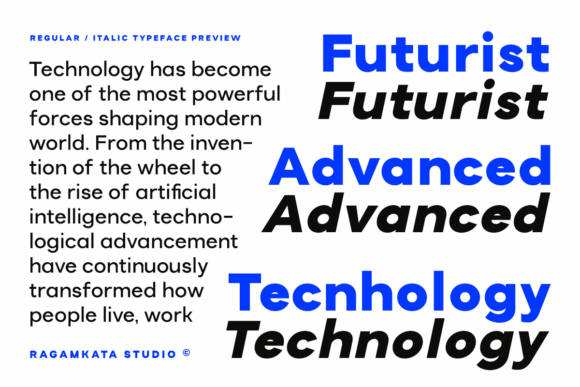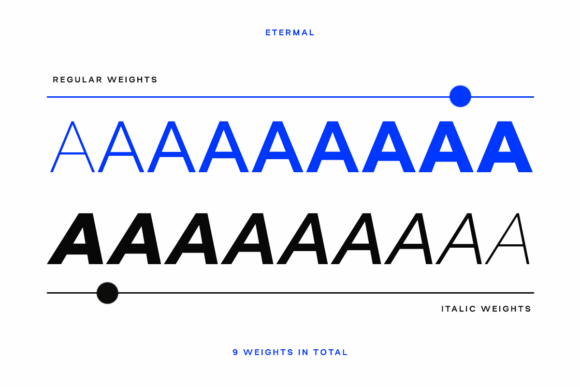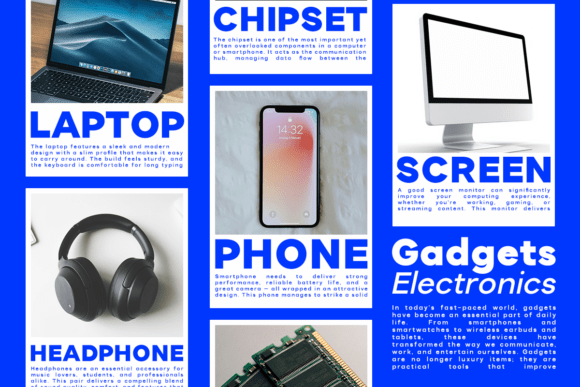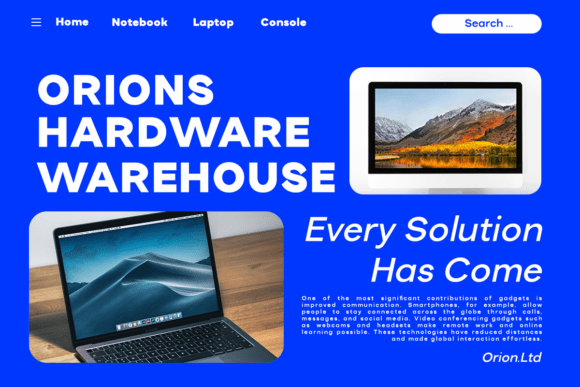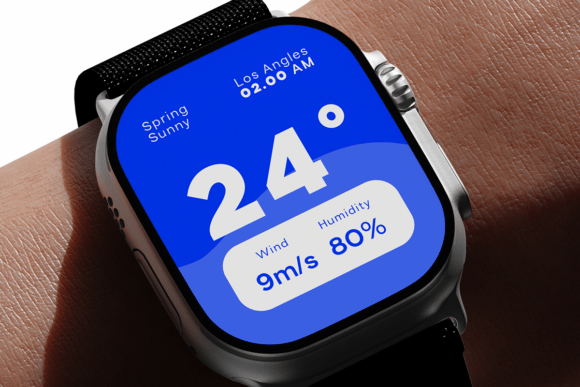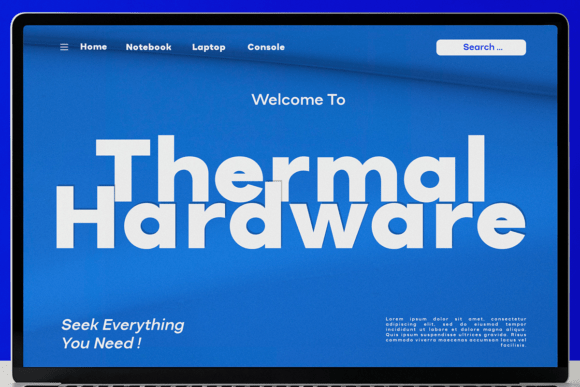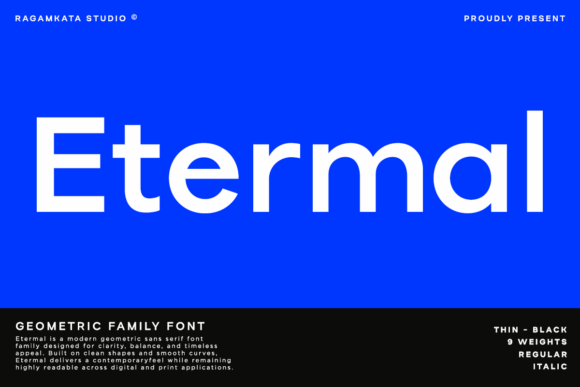
Etermal Font: The Ultimate Geometric Sans Serif for Modern Design
In the world of typography, a font can make or break a design. With the rise of modern design, the demand for clean, contemporary, and highly adaptable fonts has increased. Etermal, a modern geometric sans serif family font, has emerged as a game-changer in the design industry. Designed to deliver clarity, balance, and timeless visual strength, Etermal is perfect for designers and crafters looking for a font that can elevate their projects.
The Design Philosophy of Etermal
Etermal is built on precise geometric construction and smooth proportional curves, creating a clean and contemporary appearance that feels confident, professional, and highly adaptable. The font’s strong structure ensures excellent readability while maintaining a sleek and modern personality. This makes Etermal an ideal choice for a wide range of design projects, from branding and editorial design to web interfaces and corporate identity.
A Complete Font Family for Versatility
Etermal is engineered as a complete font family with multiple weights, providing outstanding flexibility for designers. With its wide range of weights, Etermal can be used for various design applications, including logo systems, brand guidelines, presentations, mobile apps, websites, and dashboards. The font’s versatility also extends to posters, brochures, packaging, and social media content, making it a one-stop solution for designers.
Perfect for Modern Brands and Design Studios
Etermal is particularly suited for technology brands, startups, corporate identity, digital platforms, product branding, fintech, SaaS, and creative studios. The font’s modern and sleek design makes it an excellent choice for brands looking to establish a strong visual identity. Its clean and contemporary appearance also makes it perfect for digital platforms, such as mobile apps and websites.
Key Features of Etermal
- Geometric Construction: Etermal is built on precise geometric construction, ensuring a clean and contemporary appearance.
- Multiple Weights: The font family includes multiple weights, providing flexibility for various design applications.
- Excellent Readability: Etermal’s strong structure ensures excellent readability, making it perfect for body text and headings.
- Highly Adaptable: The font’s clean and contemporary appearance makes it highly adaptable for various design projects.
Use Cases for Etermal
Etermal can be used for a wide range of design projects, including:
- Branding: Etermal is perfect for creating a strong visual identity for brands.
- Editorial Design: The font’s clean and contemporary appearance makes it ideal for editorial design, including magazines and newspapers.
- Web Interfaces: Etermal’s highly adaptable design makes it perfect for web interfaces, including websites and mobile apps.
- Corporate Identity: The font’s professional and modern appearance makes it suitable for corporate identity projects.
- Advertising: Etermal’s clean and contemporary design makes it perfect for advertising, including posters and brochures.
- UI/UX Projects: The font’s highly adaptable design makes it ideal for UI/UX projects, including dashboards and social media content.
Etermal is a modern geometric sans serif family font that delivers clarity, balance, and timeless visual strength. With its precise geometric construction, smooth proportional curves, and multiple weights, Etermal is perfect for designers and crafters looking for a highly adaptable font. Its versatility and clean contemporary appearance make it an excellent choice for a wide range of design projects, from branding and editorial design to web interfaces and corporate identity. Whether you’re a technology brand, startup, or creative studio, Etermal is the ultimate font for modern design.